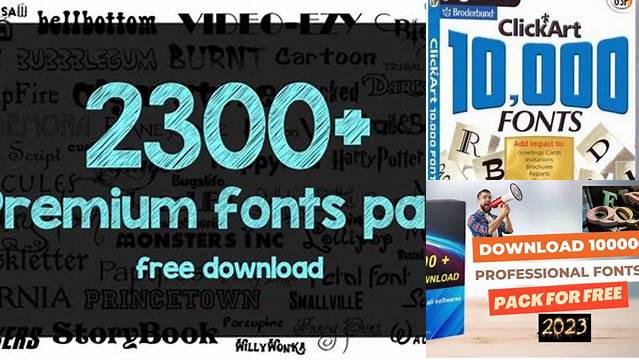
Download 10000 Fonts Pack Free: Boost Your Designs!
Hey guys! Are you ready to take your design game to the next level? Look no further! I'm super excited to talk about something that's a total game-changer for creatives like us: a 10000 fonts pack that you can download for free in a zip file. Yes, you heard that right β thousands of fonts at your fingertips, ready to add that perfect touch to your projects. Let's dive in and see why this is an absolute must-have.
Why a 10000 Fonts Pack is a Creative Goldmine
Having a comprehensive fonts pack is like having a Swiss Army knife for design. Whether you're a graphic designer, a web developer, a content creator, or just someone who loves to tinker with visuals, a vast collection of fonts can be incredibly beneficial. Here's why:
- Variety is the Spice of Design: Imagine having the freedom to choose from thousands of different typefaces. No more settling for the same old fonts everyone else uses. You can experiment with different styles, from elegant serifs to playful sans-serifs, and find the perfect font that truly captures the essence of your project. This huge variety allows you to create unique and memorable designs that stand out from the crowd.
- Professionalism and Polish: Using the right font can instantly elevate the professionalism of your work. A well-chosen font can communicate the right tone and message, whether it's conveying authority, trustworthiness, or creativity. With a massive fonts pack, you'll have access to fonts that are suitable for a wide range of purposes, ensuring that your designs always look polished and professional. Think about it β a sleek, modern font for a tech startup's website versus a classic, elegant font for a wedding invitation. The possibilities are endless!
- Time-Saving Powerhouse: How much time do you spend searching for that one perfect font? It can be a real time-sink! With a 10000 fonts pack, you'll have a treasure trove of options right at your fingertips. No more endless scrolling through online font libraries. You can quickly browse through your collection, experiment with different fonts, and find the ideal match in a fraction of the time. This efficiency boost allows you to focus on what you do best β creating amazing designs.
- Inspiration and Creativity Boost: Sometimes, all it takes is a new font to spark a fresh wave of inspiration. As you explore the different typefaces in your fonts pack, you'll discover new styles and ideas that you might not have considered before. A unique font can be the catalyst that takes your design in a completely new and exciting direction. It's like having a creative muse always on standby.
What to Expect in a 10000 Fonts Pack
Okay, so you're probably wondering what kind of fonts you can expect to find in a 10000 fonts pack. While the specific contents can vary, here's a general idea of what you might encounter:
- Serif Fonts: These fonts have small decorative strokes (serifs) at the ends of the letters. They often convey a sense of tradition, elegance, and authority. Think Times New Roman, Garamond, and Georgia. Serif fonts are commonly used in books, newspapers, and formal documents.
- Sans-Serif Fonts: These fonts lack the serifs, giving them a cleaner, more modern look. They are often used in websites, logos, and marketing materials. Popular sans-serif fonts include Arial, Helvetica, and Open Sans.
- Script Fonts: These fonts resemble handwriting and can add a touch of personality and charm to your designs. They are often used in invitations, greeting cards, and branding materials. Examples include Brush Script, Pacifico, and Lobster.
- Display Fonts: These fonts are designed to be eye-catching and attention-grabbing. They often have unique and unusual designs and are used in headlines, posters, and advertising. Think impact fonts or fancy, decorative fonts.
- Decorative Fonts: These fonts are highly stylized and ornamental. They can add a unique and artistic flair to your designs. Decorative fonts are often used in posters, flyers, and other creative projects.
- Monospace Fonts: In these fonts, each character occupies the same amount of horizontal space. They are often used in coding, technical documentation, and typewriters. Courier New and Consolas are common monospace fonts.
With such a diverse range of fonts at your disposal, you'll be well-equipped to tackle any design challenge that comes your way.